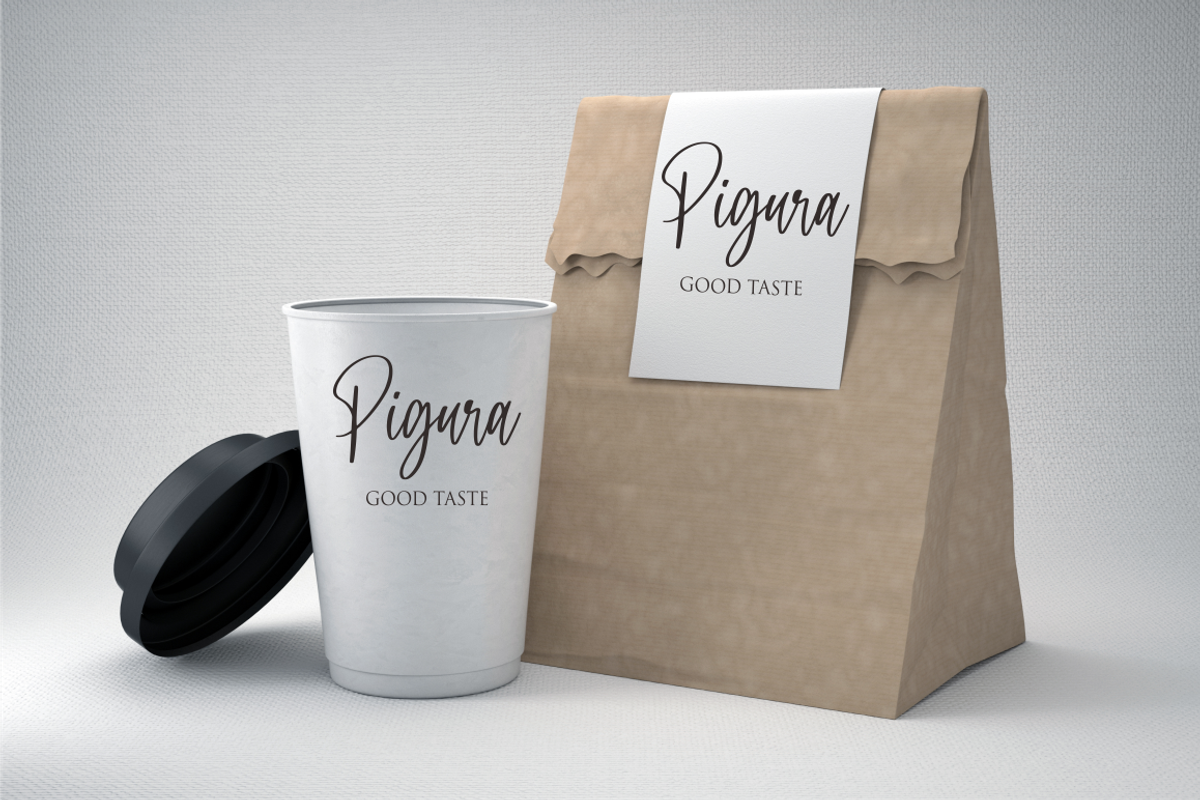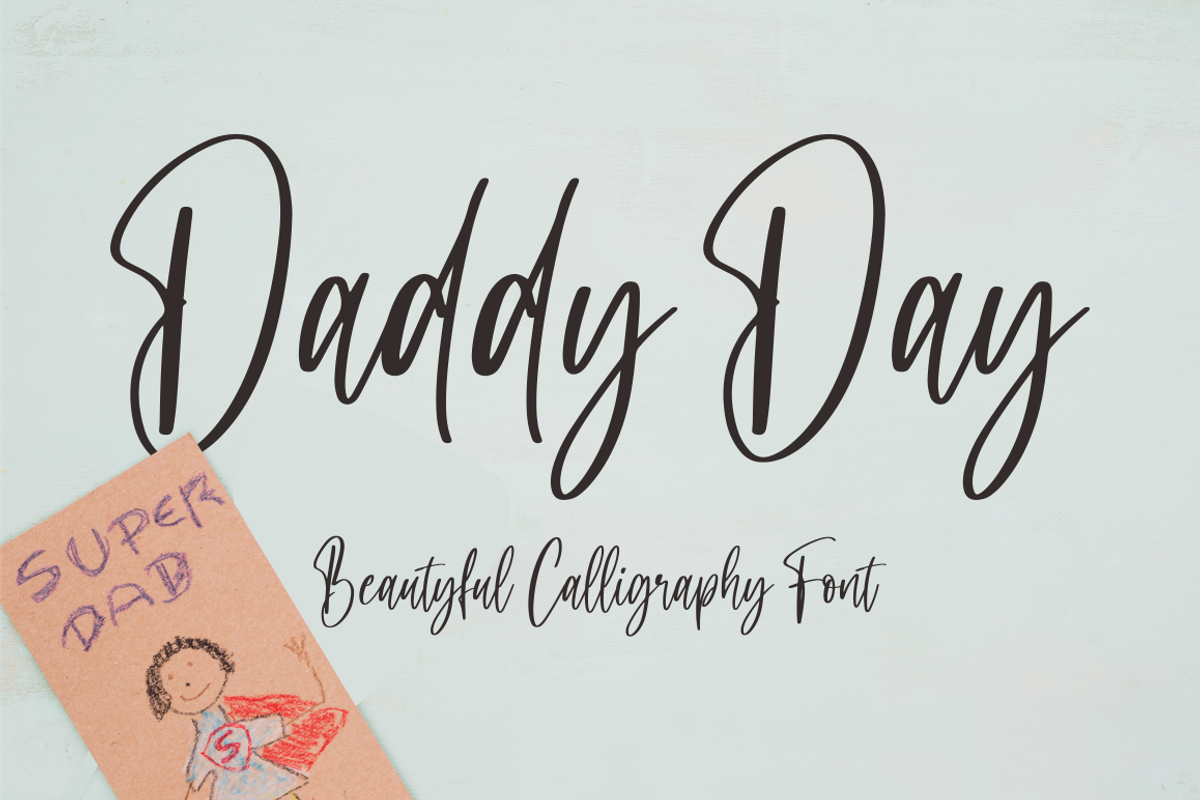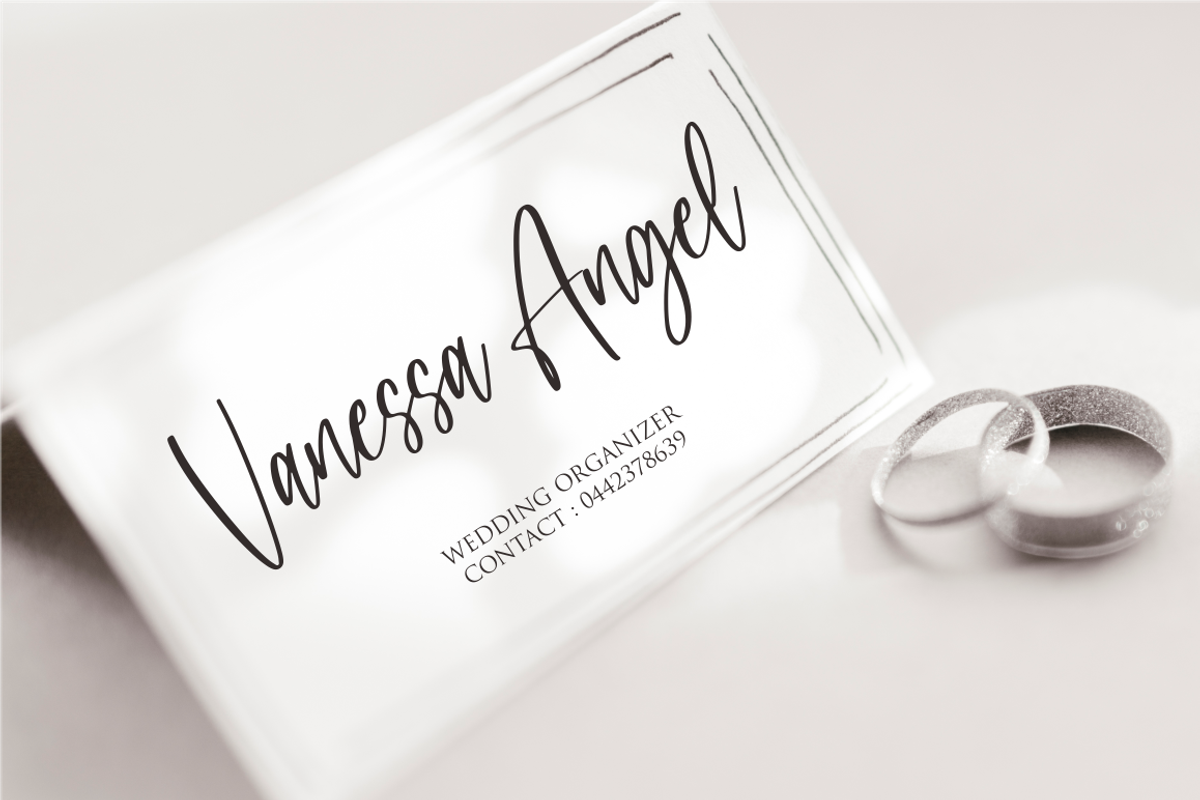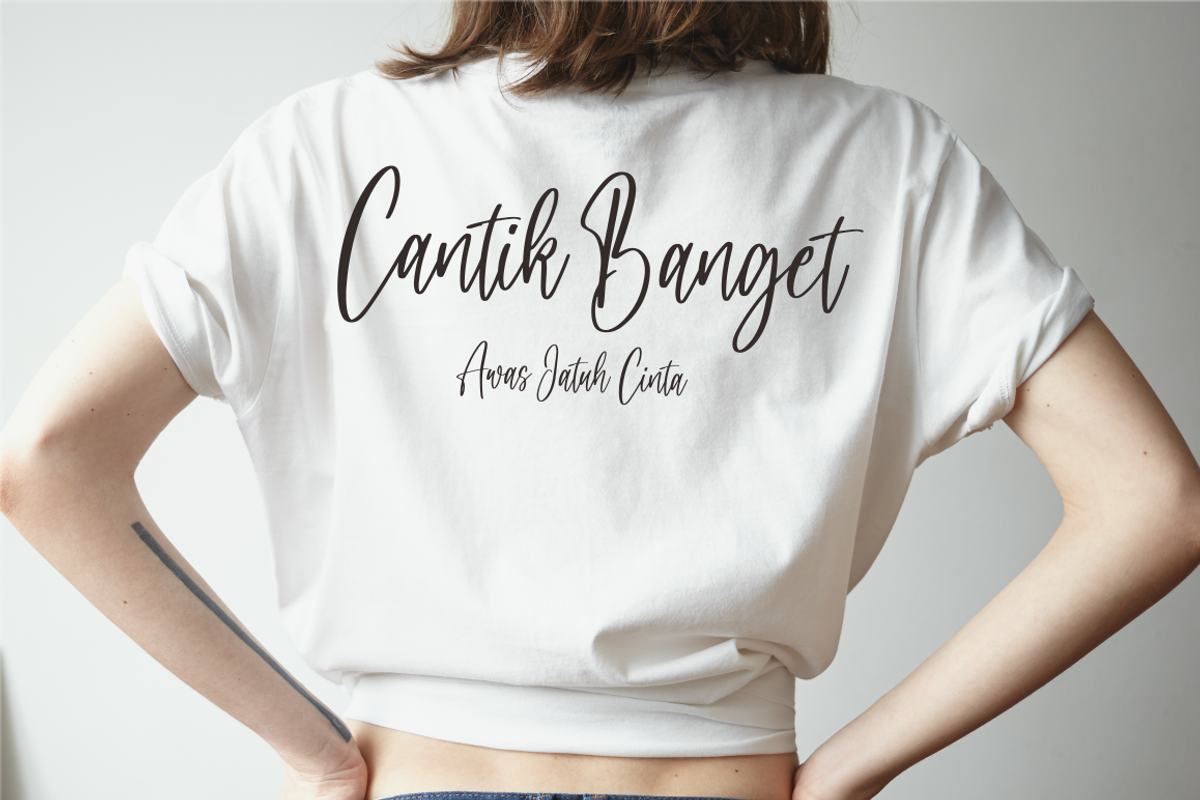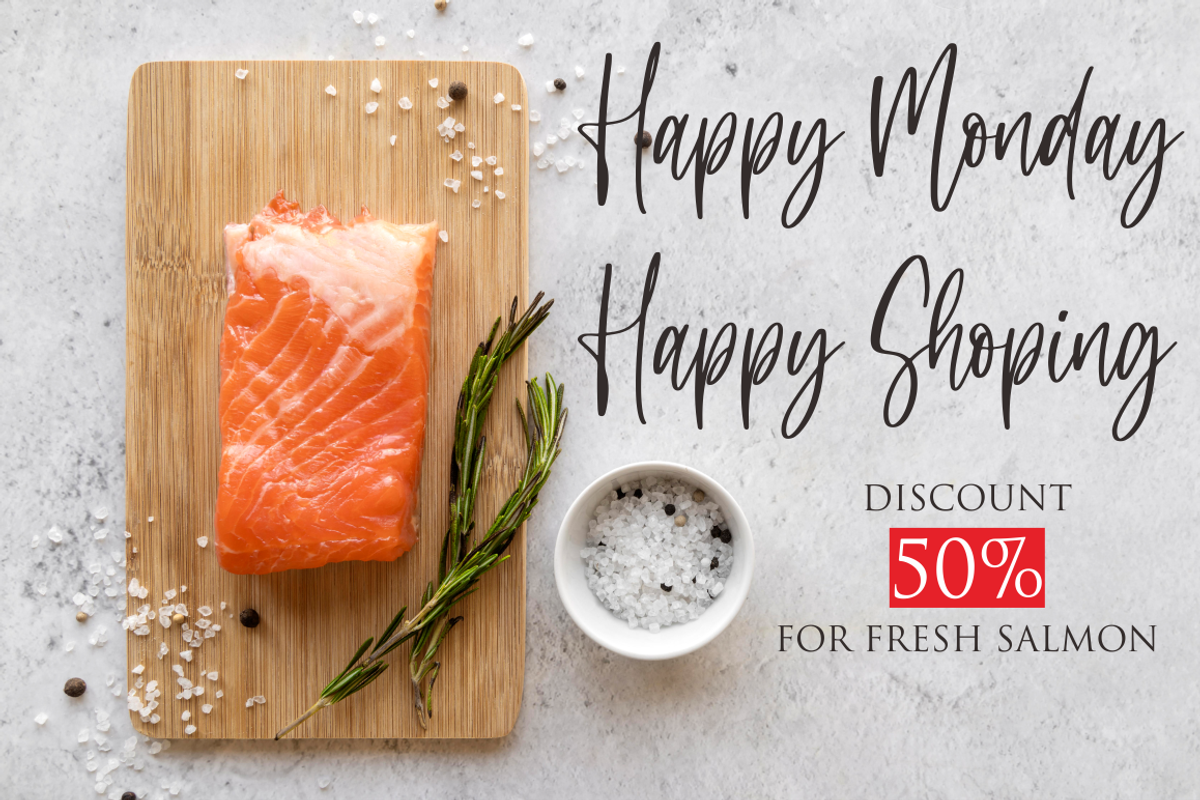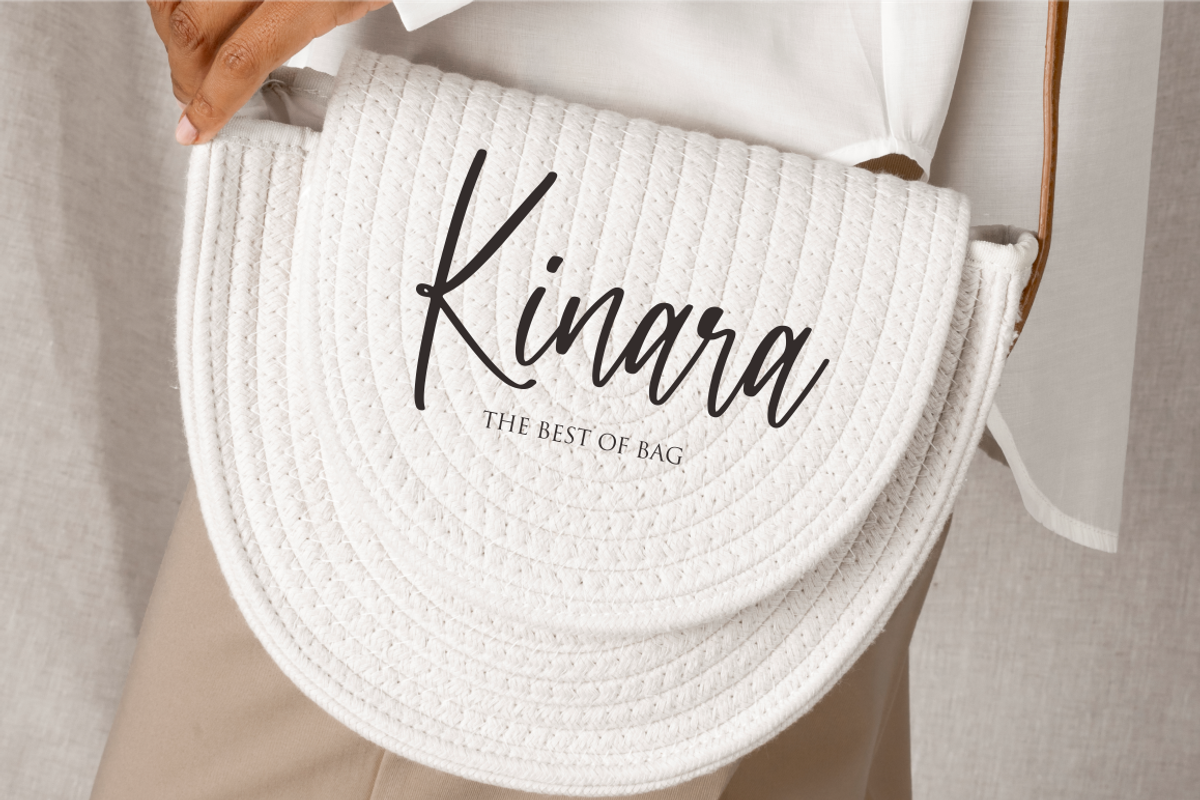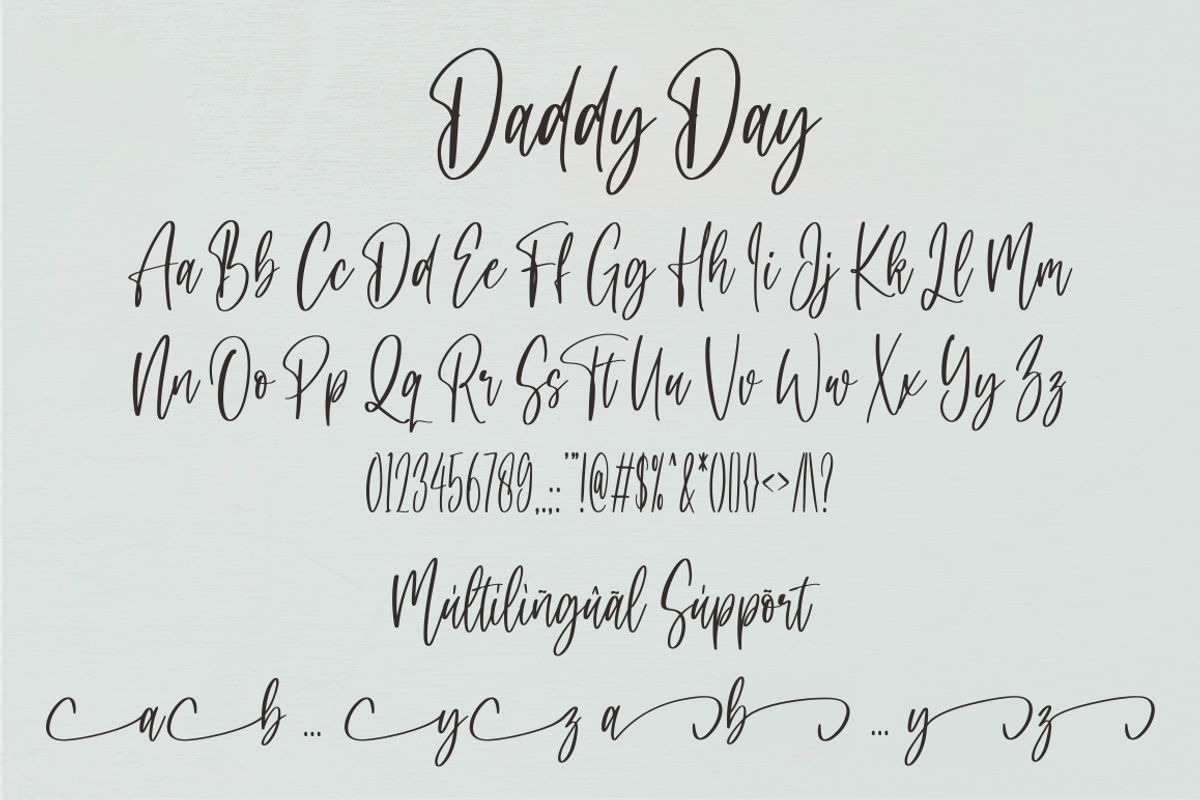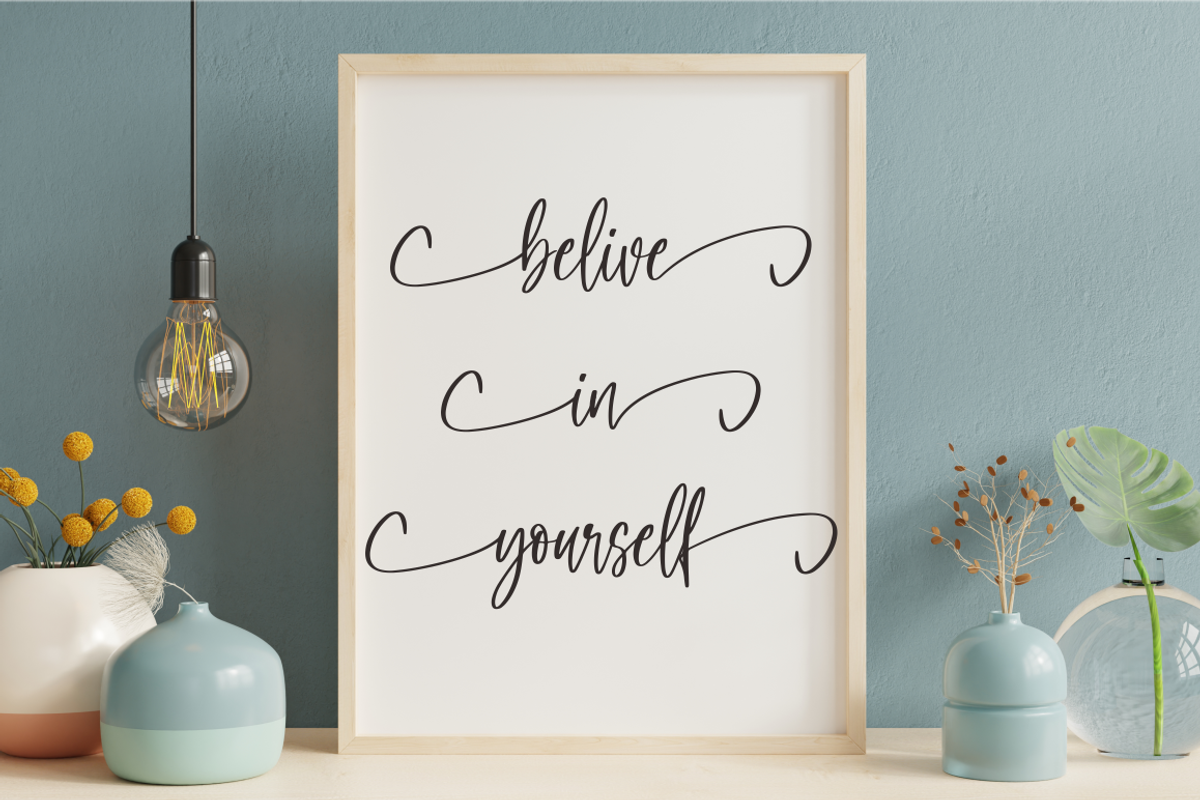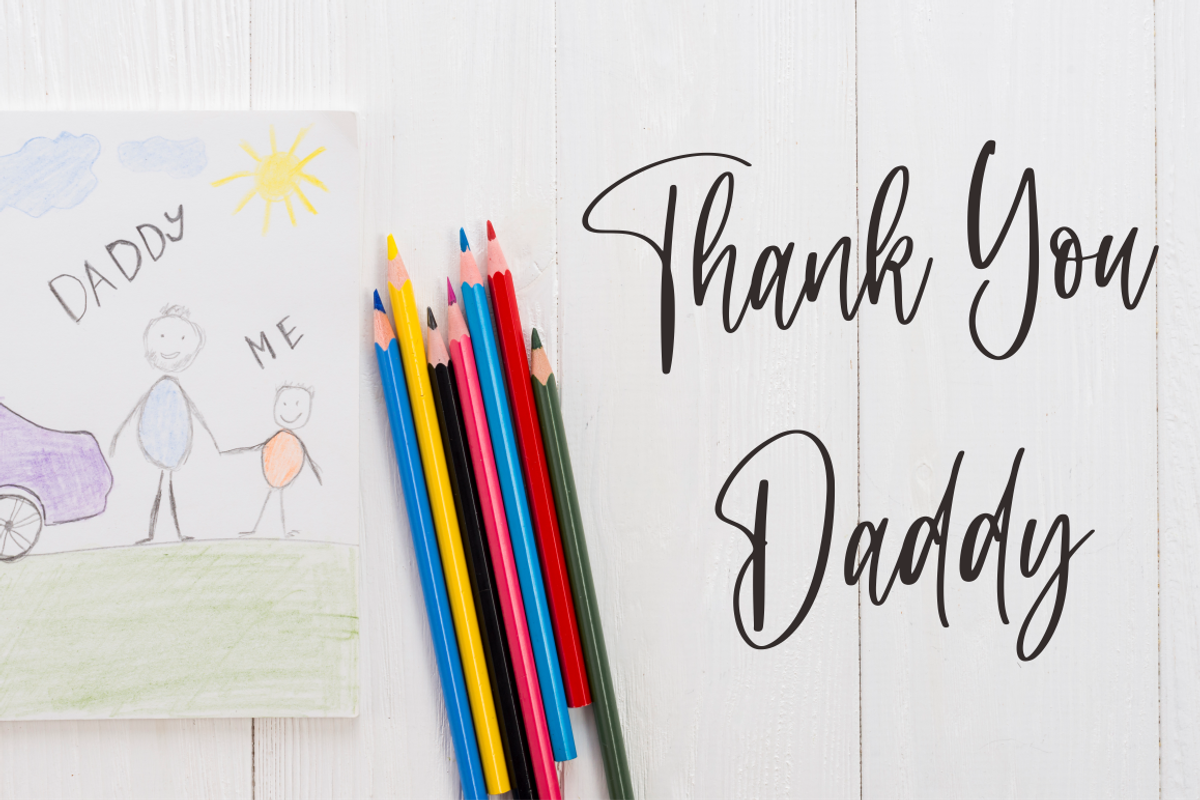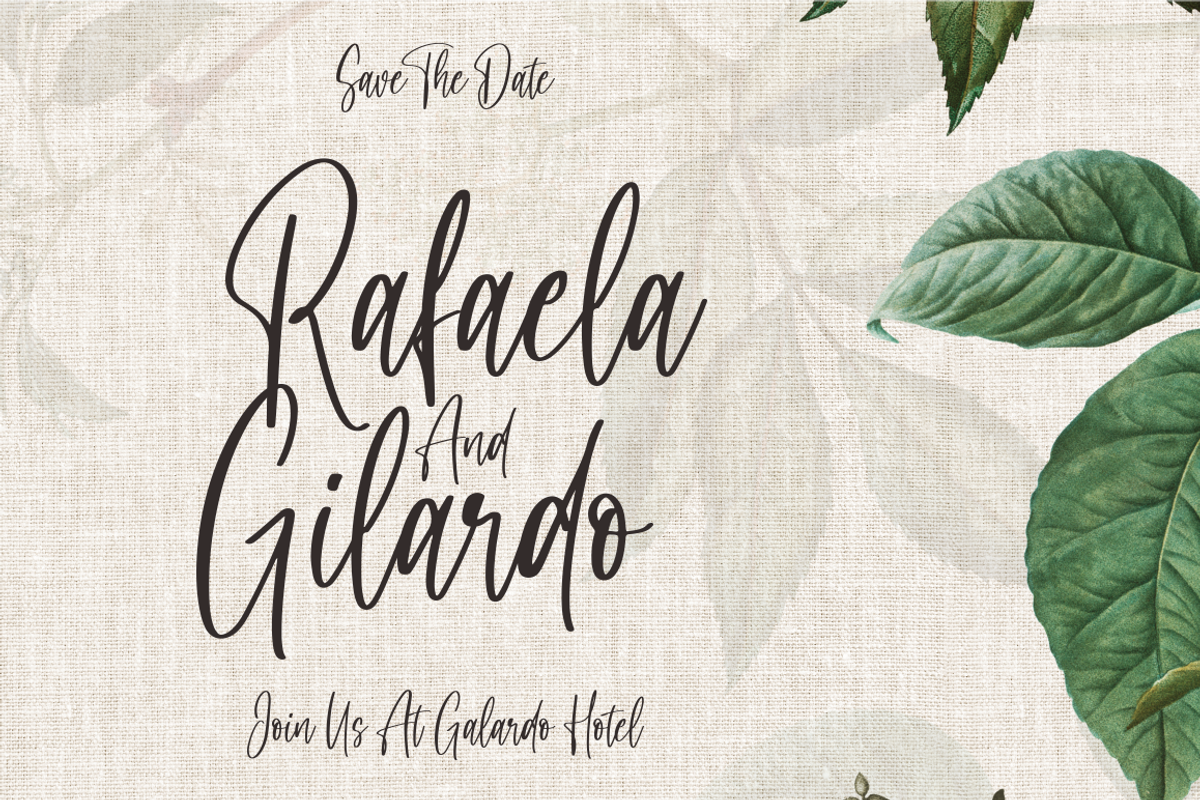
Daddy Day
Daddy Day a beautyful calligraphy font with beginning and ending swash. It features ligatures characters that will take your projects to the next level!
This font is PUA code which means you can easily access all the glyphs and swash that are full of beautyful! It also features many special features including glyphs. font designs that are made for various vector designs, printing such as digital wedding blogs, online shops, social media, while printing can be used in the field of product clothing, accessories, bags, pins, logos, business cards, watermarks and many others ...
so it can make your product look beautyful and attractive, and also Multilingual support!!!